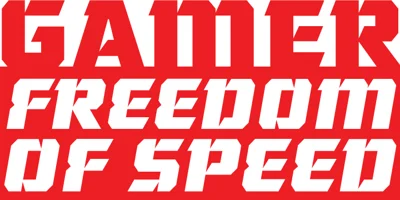
Gamer Font
Gamer Font is perfect for gaming logos, esports team branding, video game interfaces, streaming overlays, gaming tournament posters, YouTube gaming thumbnails, twitch channel graphics, and digital entertainment marketing. This dynamic typeface excels in projects requiring high energy and competitive spirit where gaming culture meets bold visual communication.
What makes Gamer Font exciting is its electrifying combination of aggressive aesthetics with modern digital design elements that perfectly capture the intensity and passion of gaming culture. The font features bold, angular letterforms with tech-inspired details and dynamic character shapes that convey speed, power, and competitive excellence. Its energetic personality makes it ideal for brands and content creators seeking to connect with the global gaming community.
Gamer Font family includes multiple weights and stylistic variations that provide comprehensive options for complex gaming design projects. The family typically offers regular, bold, condensed, and extended versions, along with special gaming symbols, controller icons, and digital ornaments that enhance its versatility in gaming-themed applications.
Whether you're designing esports team merchandise, creating gaming channel branding, or developing video game marketing materials, Gamer Font delivers maximum impact across all gaming platforms. This font's competitive edge and digital aesthetic make it perfect for brands targeting gamers, streamers, and digital entertainment enthusiasts worldwide.
The sharp edges and optimized readability of Gamer Font ensure excellent performance both on screen and in print while maintaining its distinctive gaming personality. Its modern construction and attention to digital display requirements create professional results that resonate with gaming audiences. Download Gamer Font today and level up your gaming projects with this high-performance typeface designed specifically for the digital entertainment industry.